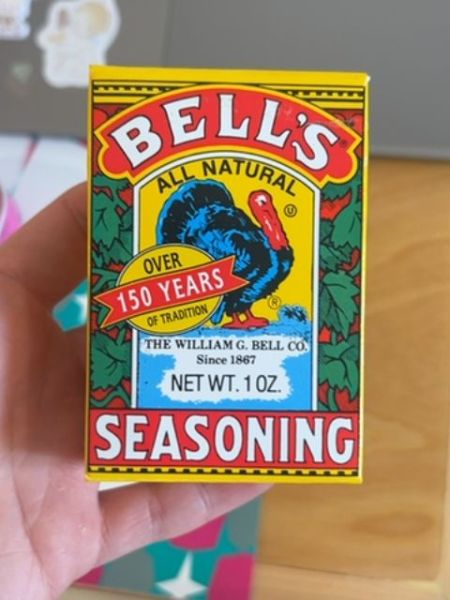
Bell's Seasoning
Bell's Seasoning is an all-natural blend of herbs and spices used primarily for flavoring poultry, stuffing, and other savory dishes.
1867
USA
The typography is bold and classic, with 'BELL'S' in an arched, upper-case serif font that exudes tradition and quality. 'SEASONING' is displayed in a solid, white uppercase serif font against a red background, enhancing visibility and readability. The overall type style is reminiscent of vintage packaging, which aligns with the product's long heritage.
The packaging is vibrant, featuring a yellow border with intricate green holly leaves surrounding a central illustration of a turkey. The use of red and bold fonts makes the product name stand out, while other elements like the year established and weight are clearly highlighted.
- Over 150 years of tradition.
- The William G. Bell Co. was established in 1867.
- Bell's Seasoning is renowned for its unique blend of herbs and spices.